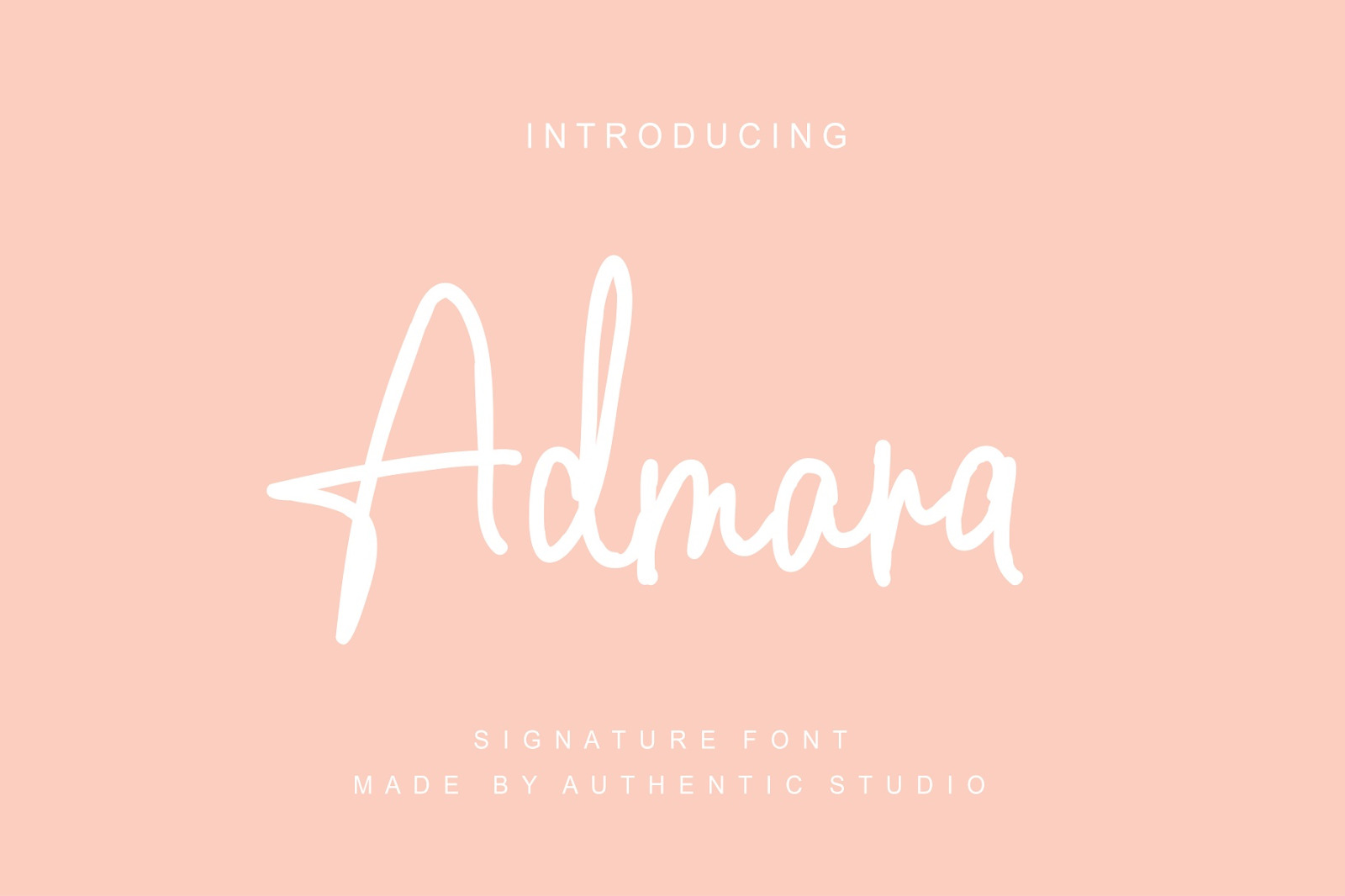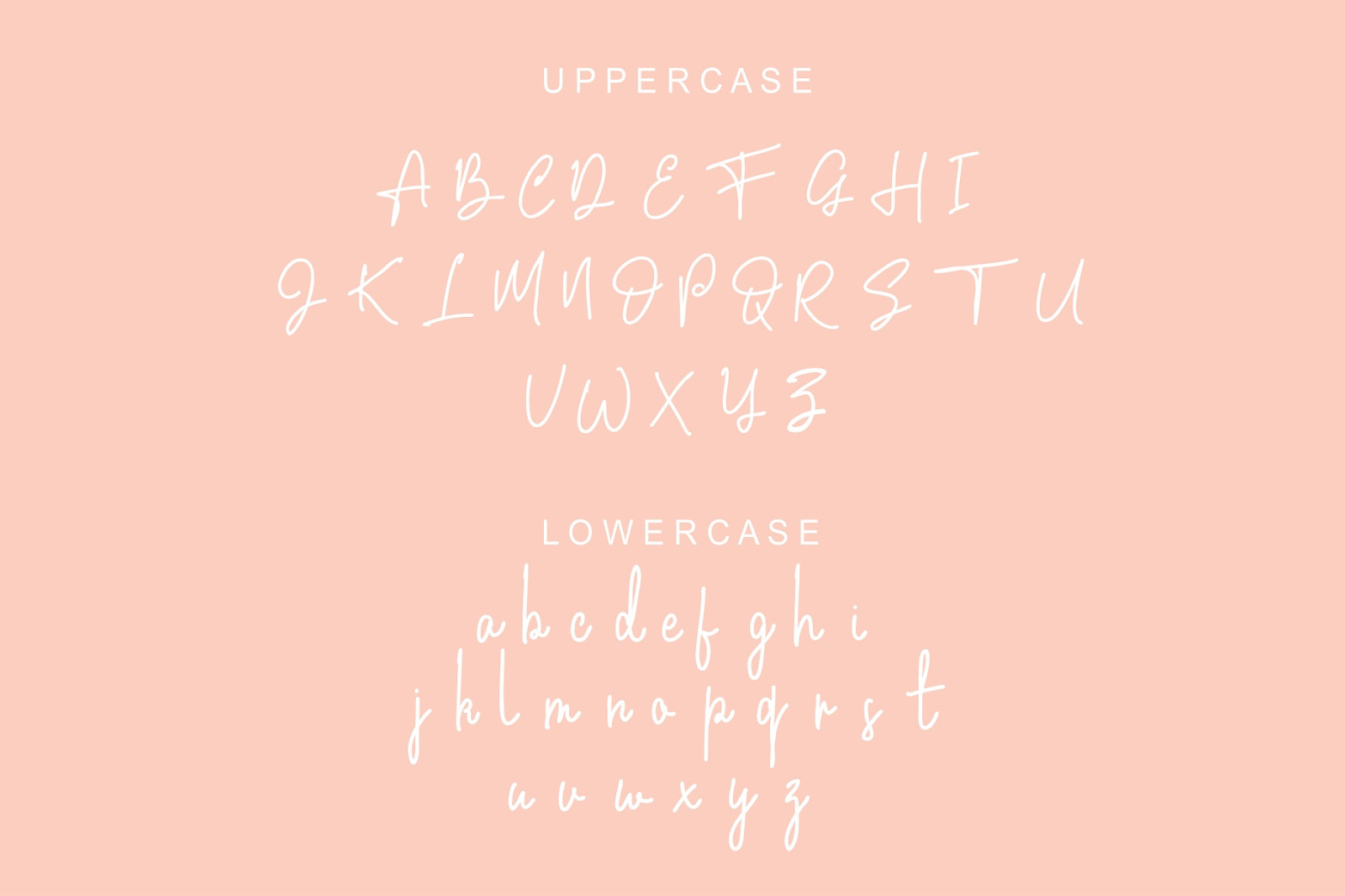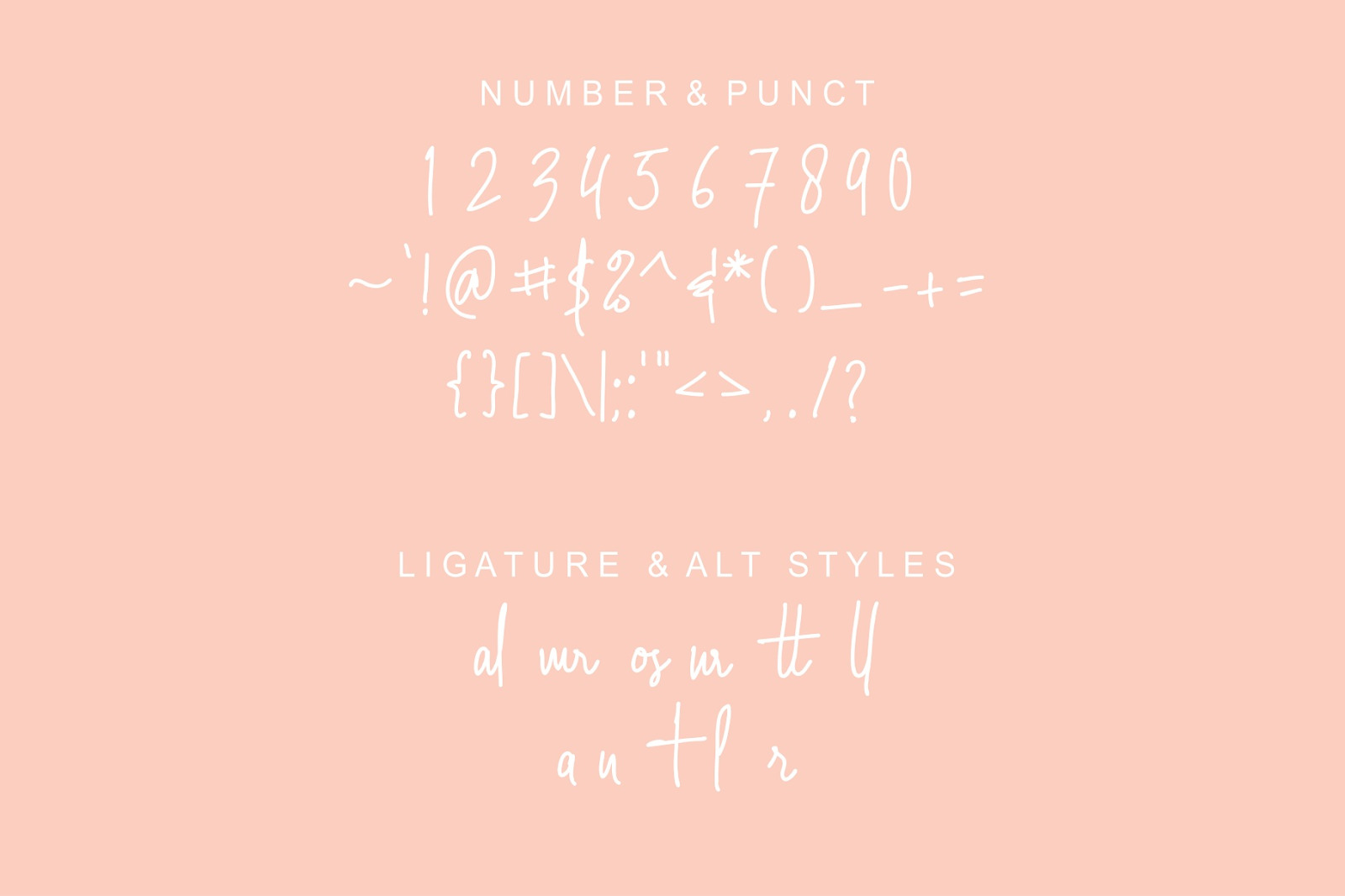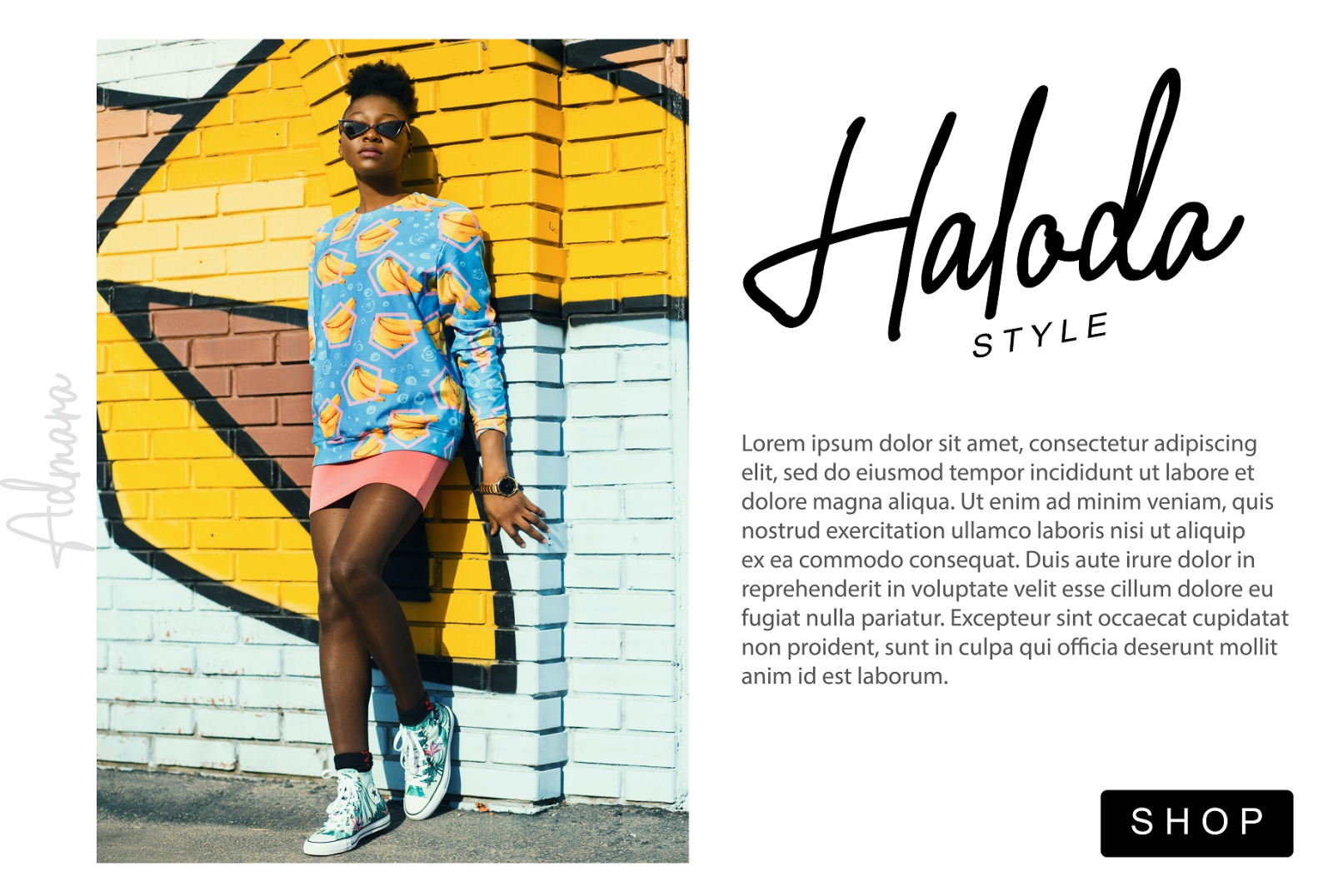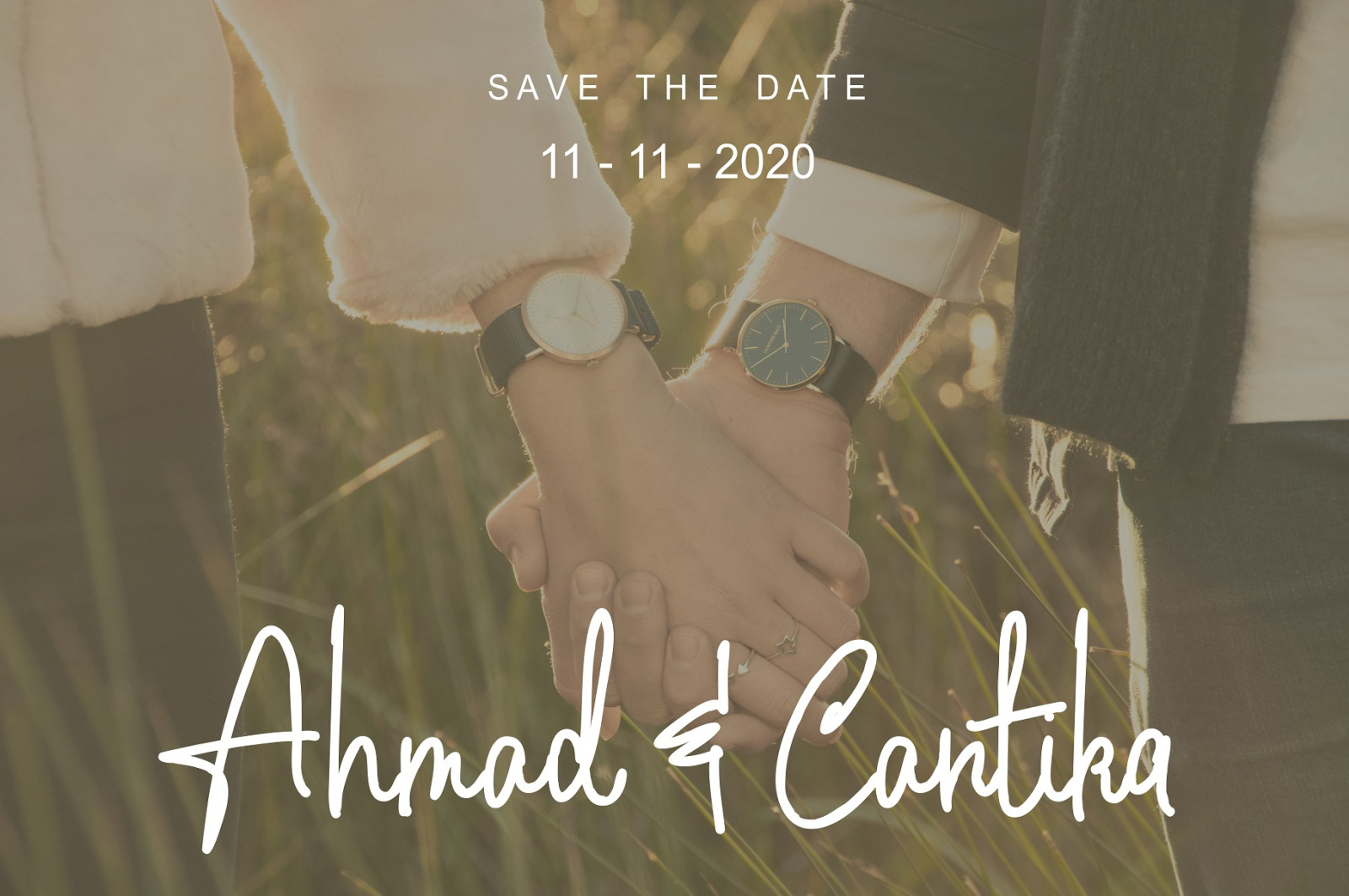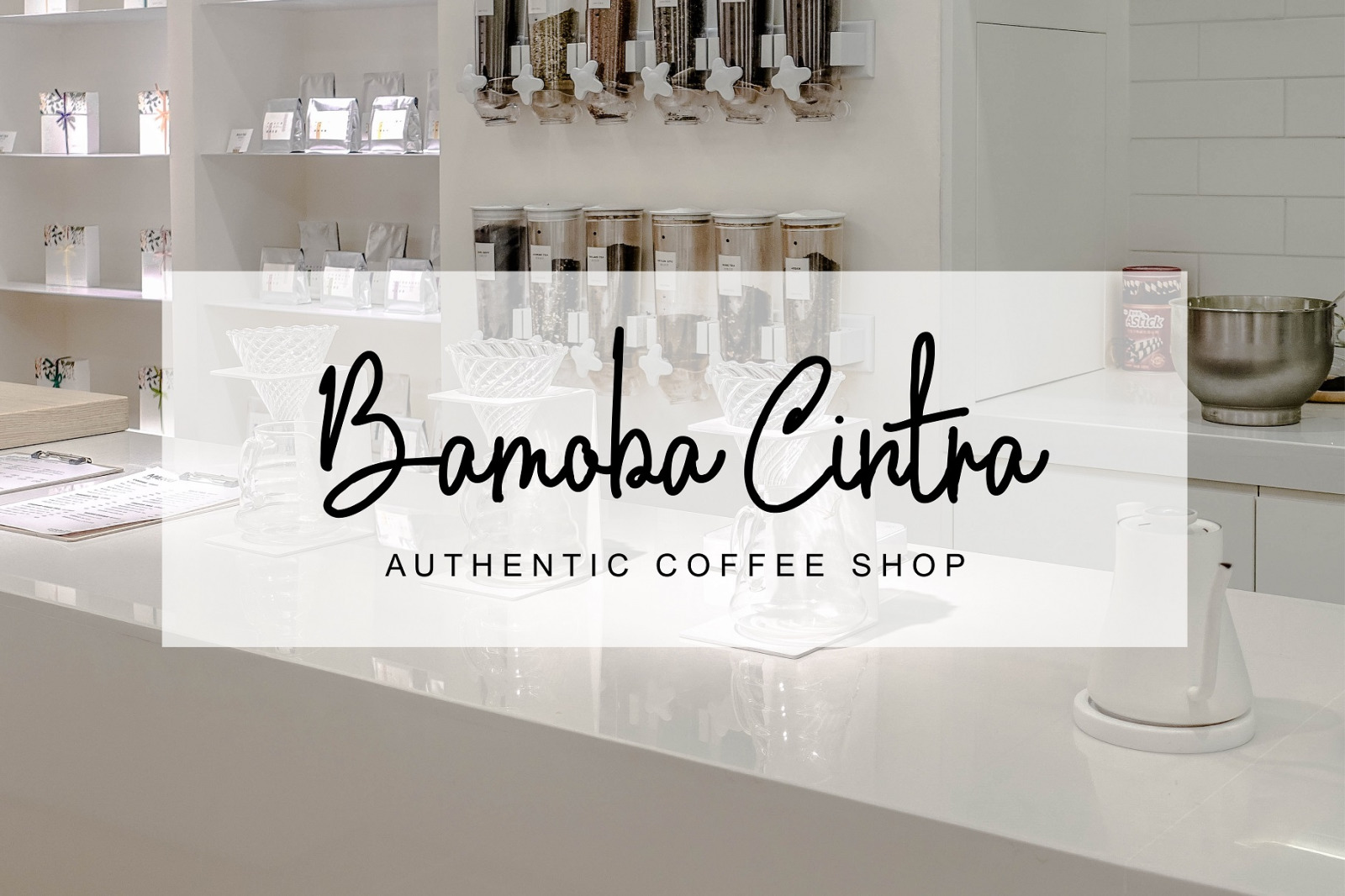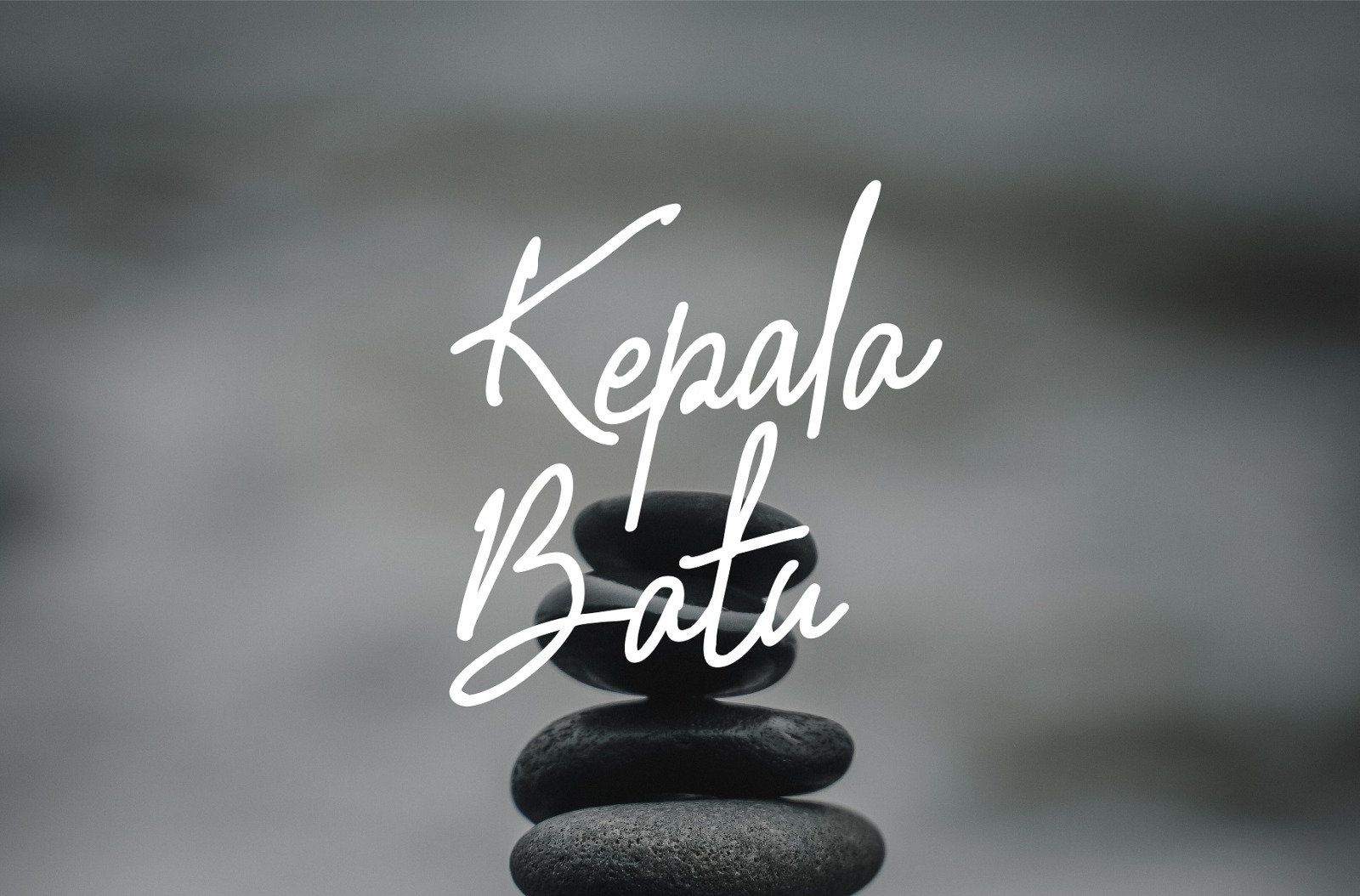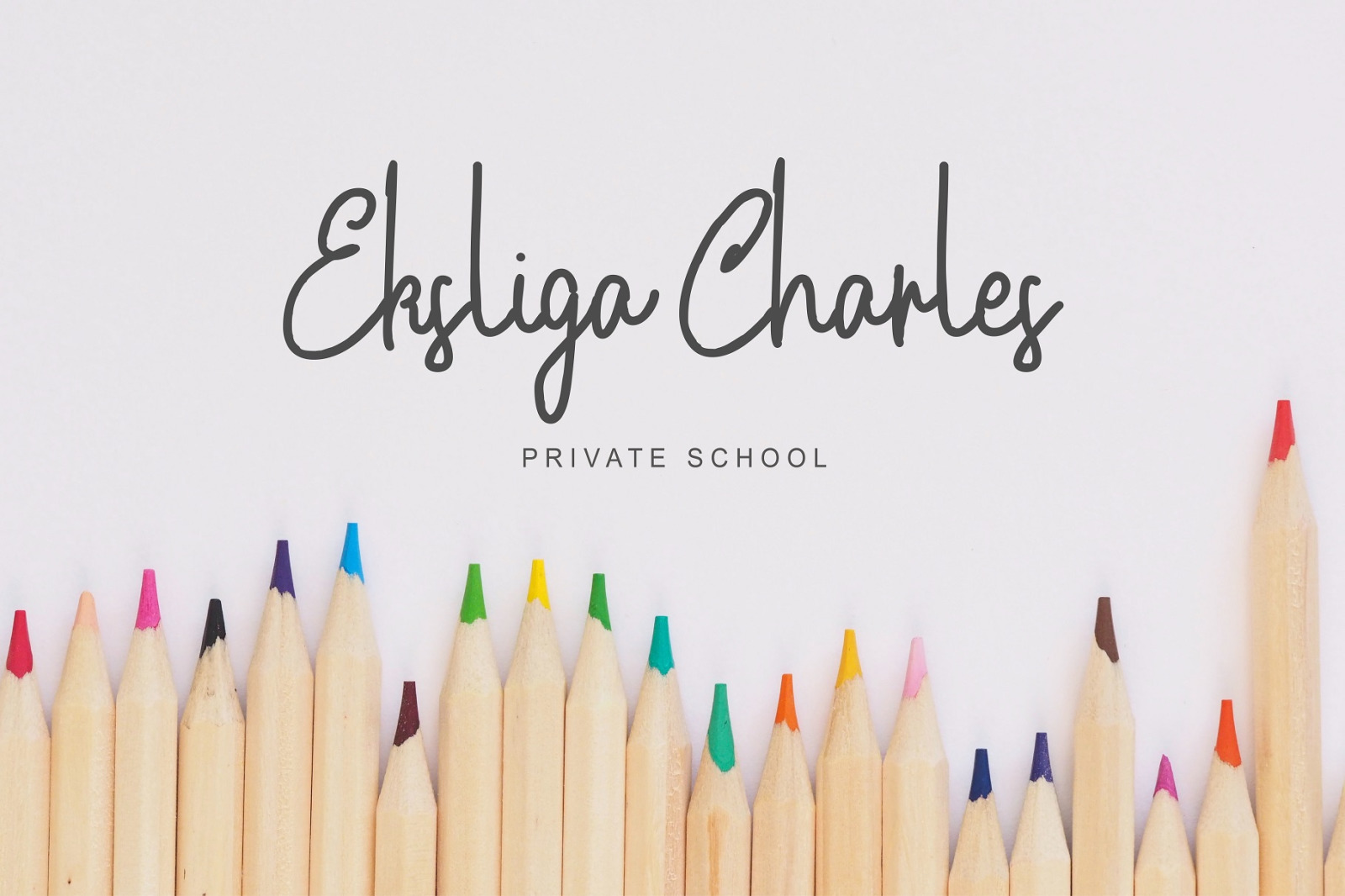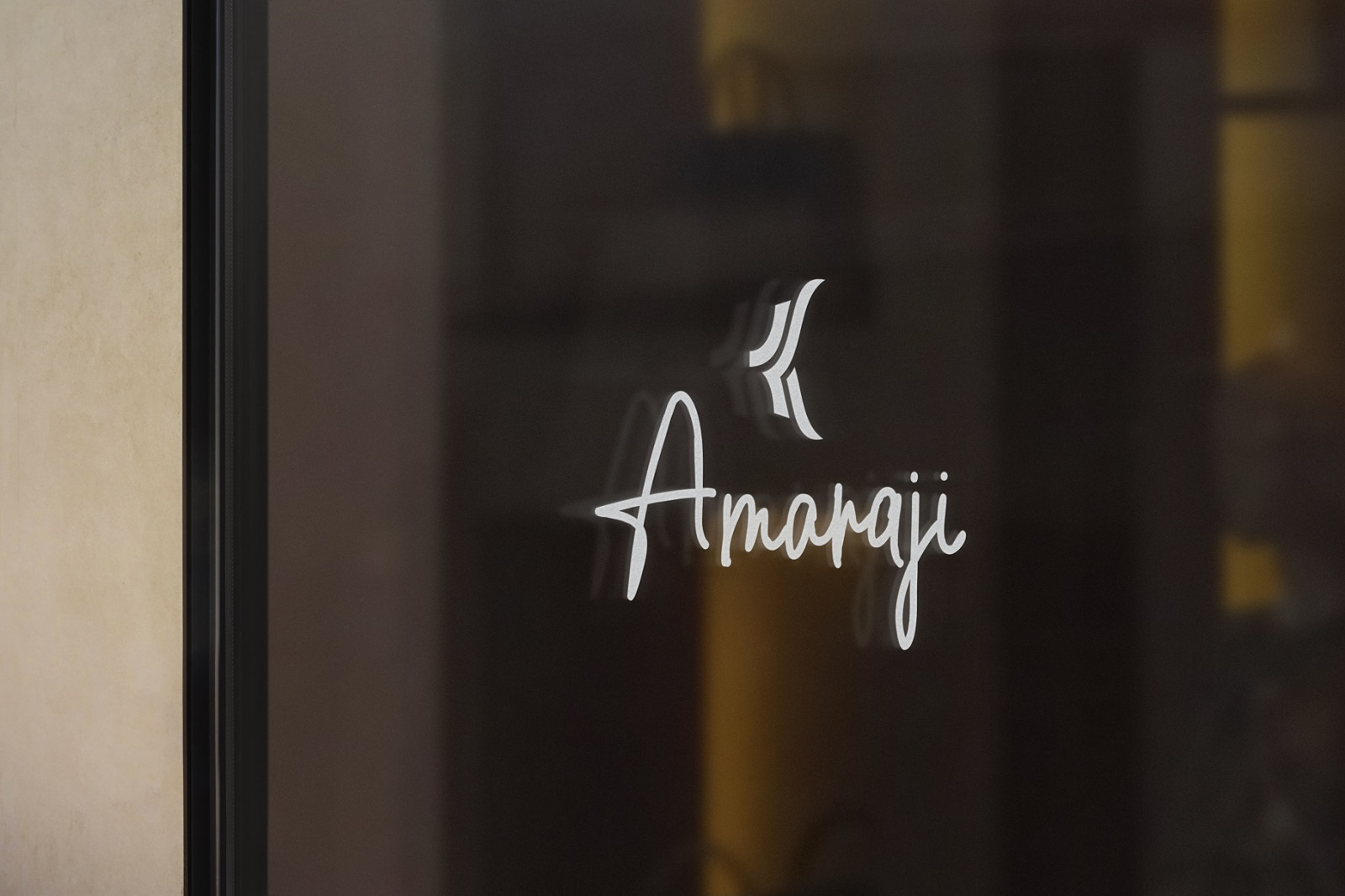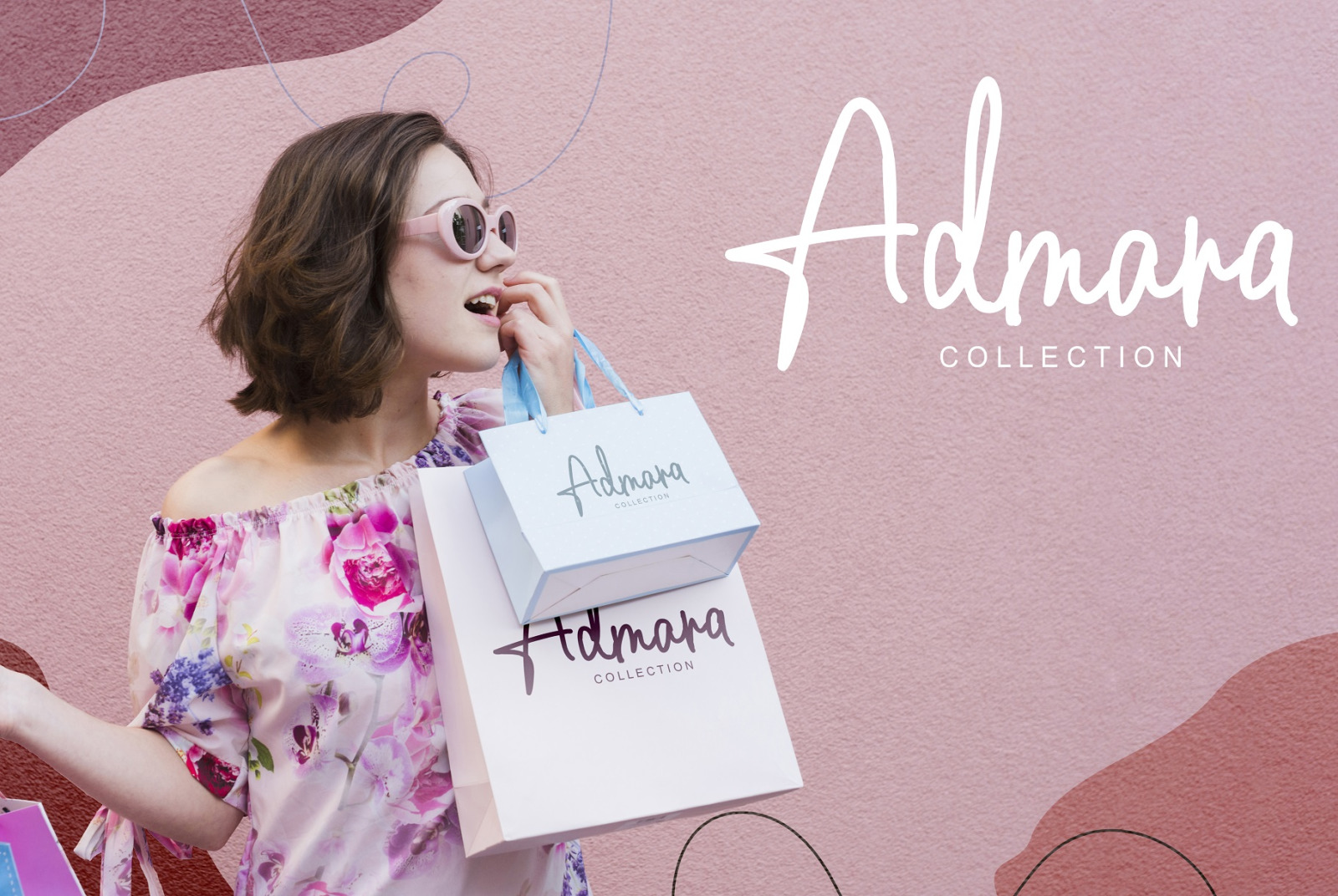
Admara Font
Hello,this is admara signature font Give your designs an authentic handcrafted feel. Admara Signature Font is perfectly suited to signature, stationery, logo, typography quotes, magazine or book cover, website header, clothing, branding, packaging design and more.